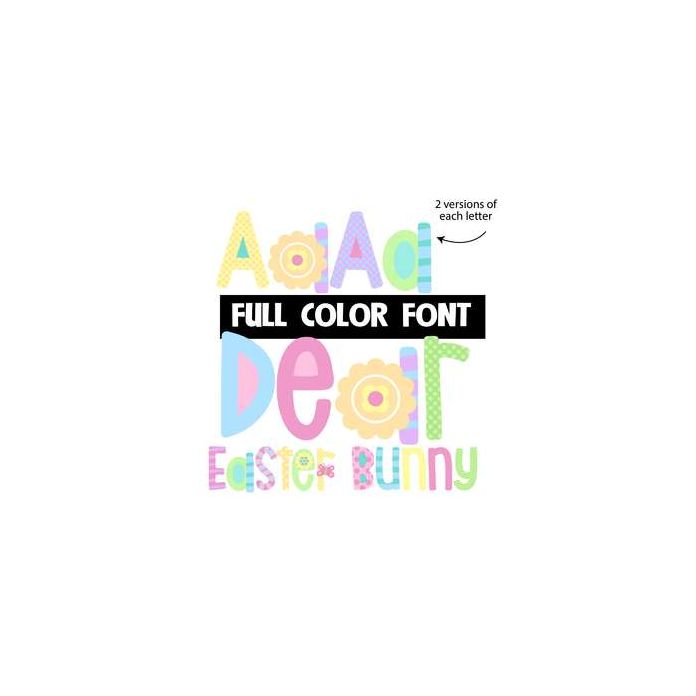
This full-color font features a pastel palette, Easter eggs, flowers, and more. There is an alt upper and lowercase you can access through Silhouette Studio's character map. This font works best for titles, displays, posters and more. Please note color fonts will show as black in non compatible programs. This font type is compatible with Silhouette Studio.